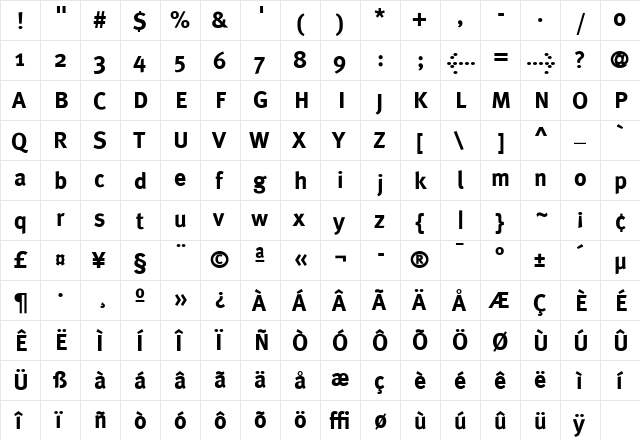
MetaPlus Bold Font Preview
MetaPlus Bold
MetaPlus Bold Font Details
| Foundry | Copr. Erik Spiekermann |
| Copyright | Copr.1993 Erik Spiekermann |
Design Context for MetaPlus Typeface
MetaPlus offers clean, dependable letterforms without strong stylistic allegiance, making it a practical choice for designers who need flexibility. The heavy weight commands attention and anchors typographic hierarchies.